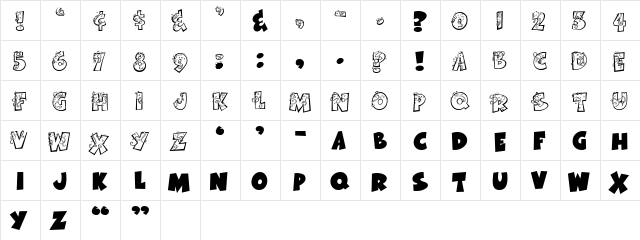
Cartoon Party Time Regular Font Preview
Cartoon Party Time Regular
Cartoon Party Time Regular Font Details
Design Context for Cartoon Party Time Typeface
Cartoon Party Time has an approachable, lighthearted character — its loose, expressive forms are well-suited to children's content, casual branding, and fun-first design.
Font Pairing: Pairs well with a rounded or humanist sans for body copy, maintaining the friendly tone without relying on Cartoon Party Time to carry extended reading.
Pro Tip: Avoid using Cartoon Party Time for long passages of text — it works best for headlines, labels, and short calls to action.